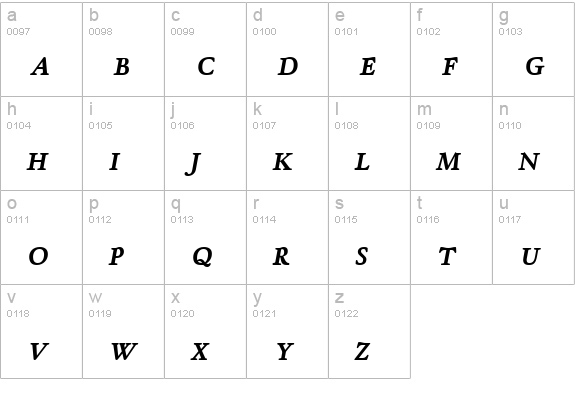
Winthorpe Sc Sb Italic is a distinctive, italic variant in the Winthorpe typeface family \xE2\x80\x94 well suited to design and typography projects.
The Winthorpe Sc Sb Italic font exudes elegance and sophistication with its stylish, slanted letterforms that gracefully combine traditional and modern design elements. This typeface is perfect for adding a touch of flair to any project, whether it be a formal invitation, a chic branding campaign, or a sleek website design. What sets Winthorpe Sc Sb Italic apart is not only its striking aesthetics but also the versatility it offers. The italicized style adds a dynamic and expressive quality to text, making it stand out and capture attention. Its clean lines and balanced proportions make it easy to read, ensuring that your message is conveyed effectively. Best of all, Winthorpe Sc Sb Italic is available for free download at FontsMarket.com. This means that you can enhance your creative projects with this sophisticated font without breaking the bank. Don't miss out on the opportunity to elevate your designs with the timeless charm of Winthorpe Sc Sb Italic.